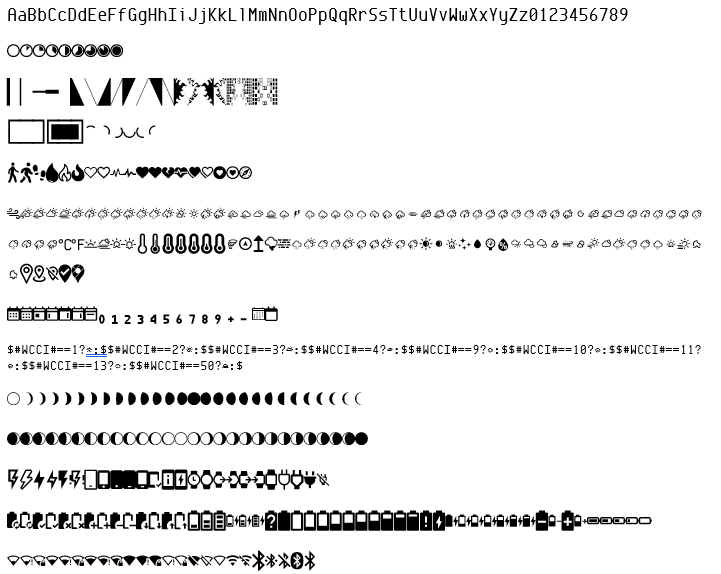
Time and weather font
Right when I started I couldn’t find a decent monospaced font without a strike on the zero so I took my favourite at the time, Roboto Mono and edited it in FontForge.
The face by @petruuccios with watch hands as font characters got me thinking of other uses so the hunt began for a half decent weather set in SVG format. I found these: Free Set of 188 Weather Icons | PNG and SVG Formats
SVG images can be imported as font glyphs so I set about it on my font. I made some edits in Inkscape so I had distinct few/scattered/broken clouds.
Now, If I am using the font anyway for other text fields, I don’t need to import images for the various weather states. I can just use: $#WCCI#==1?ƀ:$$#WCCI#==2?Ɓ:$$#WCCI#==3?Ƃ:$$#WCCI#==4?ƃ:$$#WCCI#==9?Ƅ:$$#WCCI#==10?ƅ:$$#WCCI#==11?Ɔ:$$#WCCI#==13?Ƈ:$$#WCCI#==50?ƈ:$
I’ll make a new datestamped version for changes to the font I make so that if anyone does use it they know what is what.
I have added a bunch of other images in there and using Word->Insert Symbol after installing the font in Windows will get you the copy/paste character:
I think it works OK.
And if you’re into LCD, this set of fonts also includes an weather font set to simulate LCD.
I think you meant like golden sun, blue rain drops, gray shaded clouds etc.
With facer we can not use the colored fonts (even those have limited color resolution), only BW .ttf
If the icons were cut out from square boxes, the font could be used as mask above colorful background, but that is something different.
I did a bit of research here and found a few sites where it is easier to find free weather images than sites that use the free keyword because they have one image in the forest of paid. You can drop the stock weather element in and replace each of the images with your own I think. They have static ones too.
And now for something completely different.
Well BIGGER
Nerd Fonts. These are sets of fonts that people have crammed with hundreds of glyphs. Making the face below the bulk of the time was scrolling through the character map picking the most promising looking for Facer, so you don’t have to. You can find my copy paste sheet here: Dropbox
Not all of these will work on the face but if you take a copy you can whittle it down further while adding your own favourites.
‘Where can I find this wonder font?’ I hear you ask. Well there are a shed load of them with different base styles but the same mahoosive glyph set bolted on: Nerd Fonts - Iconic font aggregator, glyphs/icons collection, & fonts patcher
And, I think I am the first to publish a face that uses nothing but a single font?
But to avoid using unknown characters and always attaching whole package of unused glyphs, I would still prefer having multiple, purpose-built fonts, that cover one topic each (like battery, moon phase, weather, fitness etc.) and rely only on the basic character set, so I do not have to pick them from deep down below from character map, because I don’t even know how to write them on my keyboard.
That’s why I spent the time making an index document and sharing it on dropbox so the characters could be copy pasted.
I only used a fraction that I thought might be useful on watches and it still needs trimming to those that actually display on a watch.
The other thing I love about font glyphs over images/stickers is that you get the AOD colour for free without an additional element.
The Nerd Font site does tell you how to go about selecting your own glyph sets and attaching them to a font though, so that could be useful to make your own FaveFont+Weather, FaveFont+Sensors or something. Or just a FaveFont+FacerFaves.
Back on inserting them I can only remember ° as ALT+0176. Generally I will use Word and Insert Symbol but just the Windows Character map works as a glyph browser. Scrolling 550 glyphs is a chore though, hence the visual index document to copy from.